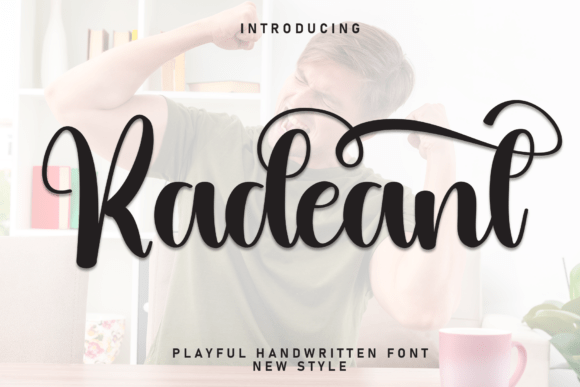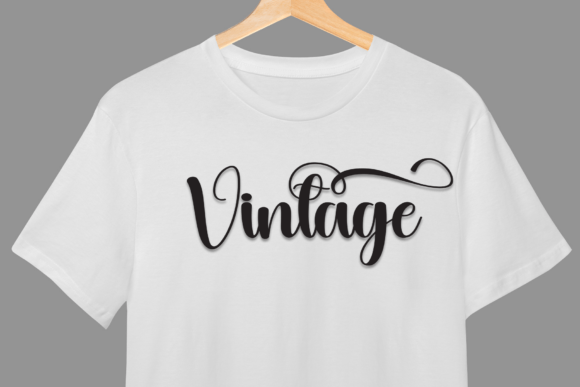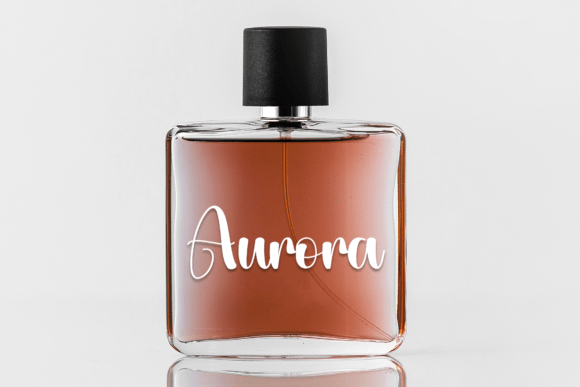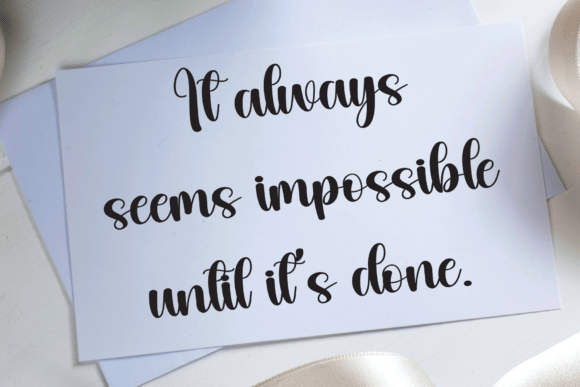
Radeant Font: Elegant Handwritten Script for Chic Logo Design
About the Radeant Font
The Radeant Font is here to transform your projects with its distinctive character and style. Radeant is a stylish handwritten script font that blends modern elegance with a playful touch. Its fluid strokes and charming curves bring a personal feel to any design. Ideal for logos, packaging, and invitations, this typeface adds warmth, sophistication, and creativity to every project.
Radeant’s playful elegance shines in projects requiring a touch of personality; logos, short headlines, and wedding invitations are ideal applications. Avoid using it for body text or lengthy paragraphs; its handwritten nature compromises readability at smaller sizes.
Consider pairing Radeant with a clean sans-serif like Montserrat for a modern contrast, or a classic serif such as Playfair Display for a more traditional feel. A geometric sans-serif could also provide a strong counterpoint, balancing Radeant’s organic curves.
Its overall personality is best described as friendly and approachable, yet sophisticated. Brands targeting a younger, creative demographic or those emphasizing handcrafted quality will find Radeant a strong asset.
Radeant Font Usage Examples
Radeant Font Example